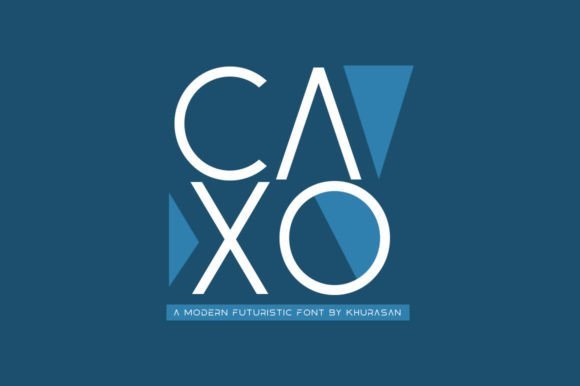
The Perfect Typography for Your Next Design Project
You know that moment when you’re brainstorming ideas for a new project, and suddenly a spark of creativity hits you? It’s the feeling of knowing exactly how you want your design to look and feel. For designers, this moment is often the result of having the right tools at our disposal. That’s why we’re excited to introduce the Caxo Font, a elegant sans serif typeface that’s perfect for elevating your next project.
Caxo Font is designed to be versatile, suitable for a wide range of applications, from logos and branding to greeting cards and posters. Its clean lines and modern aesthetic make it an ideal choice for designers who want to create a lasting impression. With Caxo Font, you can take your designs to the next level and achieve the look you’ve always envisioned.
Caxo Font Key Features
- Font Family: Caxo Font is a sans-serif font family designed for digital use.
- Unique Characteristics: Caxo Font features a clean, modern design with geometric shapes and a neutral tone, making it suitable for a wide range of applications, including digital interfaces, signage, and branding materials.
Caxo Font Review
Overall, I’m impressed with the Caxo Font. ✨ It’s modern, sleek, and versatile, making it suitable for a wide range of design projects. The font’s geometric shapes and clean lines give it a sophisticated feel, perfect for branding and typography.
- ✨ Unique and modern design: Caxo Font stands out from the crowd with its unique blend of geometric shapes and clean lines.
- ✨ Versatile: The font is suitable for various design projects, including branding, typography, and even digital interfaces.
- ✨ High-quality glyphs: The font’s glyphs are well-designed, ensuring clear and readable text.
- ⚠️ Limited language support: Caxo Font may not support all languages, which could be a limitation for designers working on multilingual projects.
- ⚠️ Limited font weights: While the font offers a decent number of font weights, it may not be as extensive as some other fonts.
Overall, Caxo Font is a solid choice for designers looking for a modern and versatile font. While it has some limitations, its unique design and high-quality glyphs make it a great addition to any design project.
Tips for Getting the Most Out of Caxo Font
1. Use Caxo Font for headings and titles to create a unique and eye-catching design.
2. Pair Caxo Font with a clean and simple sans-serif font for body text.
3. Experiment with different font sizes and styles to create visual interest.
1. Branding and identity design.
2. Web design and development.
3. Print design and marketing materials.